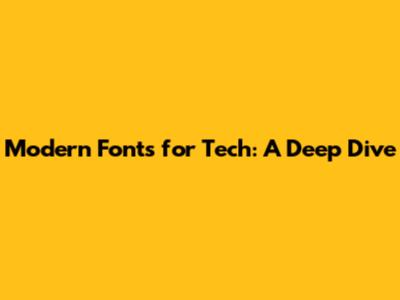
- Sans-serif Fonts: These are the bread and butter of tech. They lack the small decorative strokes (serifs) at the ends of the letters, making them clean, modern, and super readable on screens. Great examples include Helvetica, Arial, and Open Sans. They're versatile and work well for both body text and headlines.
- Geometric Fonts: These fonts are based on simple geometric shapes, giving them a sleek and futuristic feel. They often have a high level of uniformity and symmetry. Fonts like Futura and Montserrat fall into this category, and they're great for conveying a sense of innovation and precision.
- Monospaced Fonts: Each letter in these fonts occupies the same horizontal space. These are very common in coding environments because they make it easy to align code. Fonts like Courier New and Monaco are popular choices for programmers and developers.
- Variable Fonts: These allow for more flexibility. You can adjust the weight, width, and other properties of the font within a single file, which gives designers more creative control. Variable fonts are very important for those who want to be creative.
- Custom Fonts: As brands are focusing more on creating unique identities, the demand for custom fonts will probably increase. These fonts are tailored to meet the specific needs and personality of a brand. This is a chance for brands to stand out from the crowd.
- Emphasis on Accessibility: As accessibility becomes more important, expect to see more fonts designed with readability and inclusivity in mind. This includes fonts that are easier to read for people with visual impairments.
Hey guys! Ever stopped to think about the fonts we see every day, especially in the tech world? They're everywhere, from the websites you browse to the apps on your phone. They do more than just display letters; they communicate a brand's personality, influence user experience, and even impact readability. In this article, we'll dive deep into pseiimodernse technological fonts, exploring their characteristics, why they're so crucial in tech, and how you can pick the perfect ones for your projects. We'll be looking at everything from the overall design aesthetic to the details that make these fonts so effective in conveying the essence of tech-focused businesses. It is very important to use the correct fonts for your projects because if not, your project will not get the attention it needs. These fonts are more than just a collection of letterforms; they are carefully crafted tools, designed to align with the innovative spirit and user-friendly ethos of the technology industry. They can either help or harm your project. Let's get to know them.
What Makes a Font 'Technological'?
So, what actually makes a font a good fit for the tech world? Well, it's a mix of different elements. Firstly, it often features clean lines and geometric shapes. Think about the logos of major tech companies – many use sans-serif fonts because they're clean, modern, and easy to read on screens. This ties into the technical world where clarity and ease of use are super important. There are many reasons why this is important, as many projects need to be simple and easy to understand to bring in more consumers. A great technological font should also prioritize readability. In the fast-paced tech world, users need to quickly understand information. Fonts that are clear and legible, even at small sizes, are a must. They also frequently incorporate a touch of futurism or innovation. A well-designed font evokes a sense of progress, forward-thinking, and cutting-edge technology. Font weight and kerning also play a big part. The font weight needs to be carefully chosen to ensure legibility across various screen sizes and resolutions. Kerning, or the space between characters, is another detail that can improve the readability of the font. These fonts are designed with technology in mind.
The Role of Fonts in the Tech Industry
Fonts in tech aren't just decorative; they're essential tools for communication. They help establish brand identity, enhance user experience, and influence how people perceive your product or service. Let's look at it differently. Imagine a website. The font you choose is a huge part of its first impression. A modern, well-chosen font signals that your brand is current and professional, while a dated or poorly chosen font can give the impression that the website is outdated. When it comes to user experience, the right fonts are crucial for making sure that information is easy to read and understand. Fonts that are easy on the eyes improve the time that users spend on the project. This translates to increased engagement and a better user experience. The right font choices can boost brand recognition. By consistently using the same font across all of your projects, you create a visual identity that customers can immediately recognize and associate with your brand. Think about the logos of huge tech companies – they're instantly recognizable because of the specific fonts they use.
Popular Font Styles for Tech
Okay, so what kinds of fonts are popular in the tech world, and why? Let's break down some of the most common styles:
Choosing the Right Font for Your Project
Choosing the perfect font involves a few key steps. First, you should consider your brand's personality. Is your brand modern and innovative? Then maybe a geometric or sans-serif font is the best choice. If you're going for a more approachable or friendly feel, you might want to consider a slightly more rounded or softer font.
Next, think about your target audience. What kind of font will resonate with them? Are you targeting tech-savvy millennials, or a more professional audience? The needs vary based on the projects. Also, you must think about the readability and accessibility. Make sure the font is easy to read, especially on screens, and consider color contrast to improve accessibility for all users. Don't be afraid to experiment! Try out different fonts to see how they look in your designs and get feedback from others. The best fonts are the ones that work for your projects.
Best Practices for Using Tech Fonts
Even after you've picked a good font, there are still some things you need to keep in mind. First off, be consistent! Use the same font across all your branding materials – from your website to your social media posts to your brochures. This creates a cohesive visual identity that helps build brand recognition. Another important thing is to use font pairing wisely. Don't just use one font; think about which fonts work well together. Pairing a clean sans-serif font for headlines with a slightly different font for body text can add visual interest without being distracting. Also, remember hierarchy! Use different font sizes, weights, and styles to create a clear visual hierarchy. This guides the user's eye and makes it easier for them to understand the information. Finally, remember to test your fonts on different devices and screen sizes. Make sure your fonts are still readable and look good no matter how your content is viewed.
Future Trends in Tech Fonts
The world of typography is constantly evolving, so what can we expect in the future? Well, some trends are emerging.
Conclusion: The Power of Typography in the Tech World